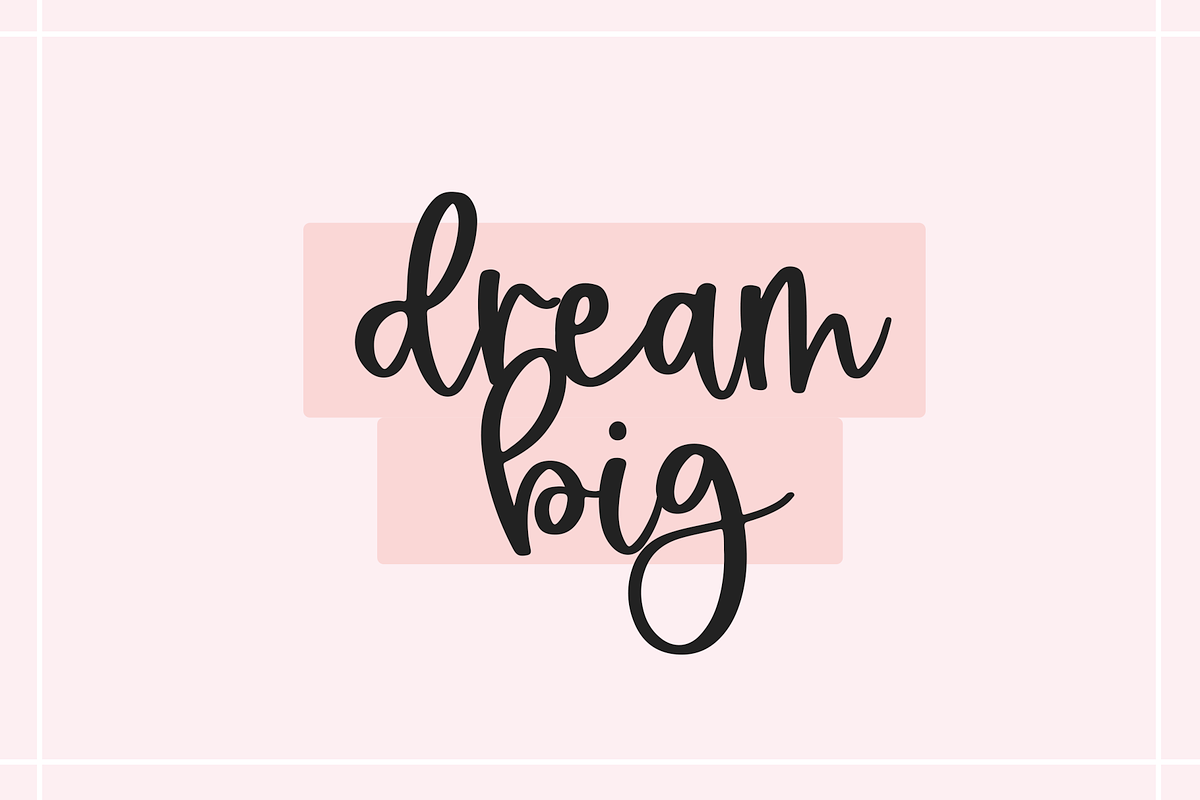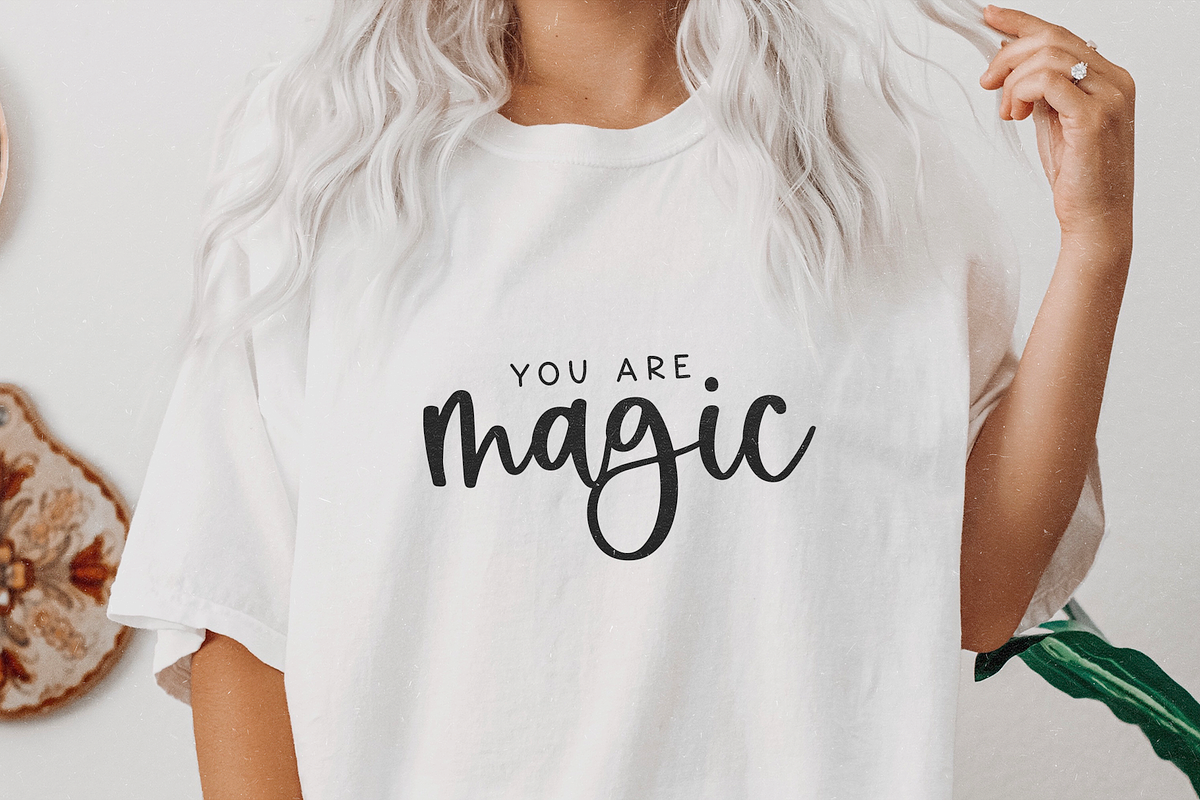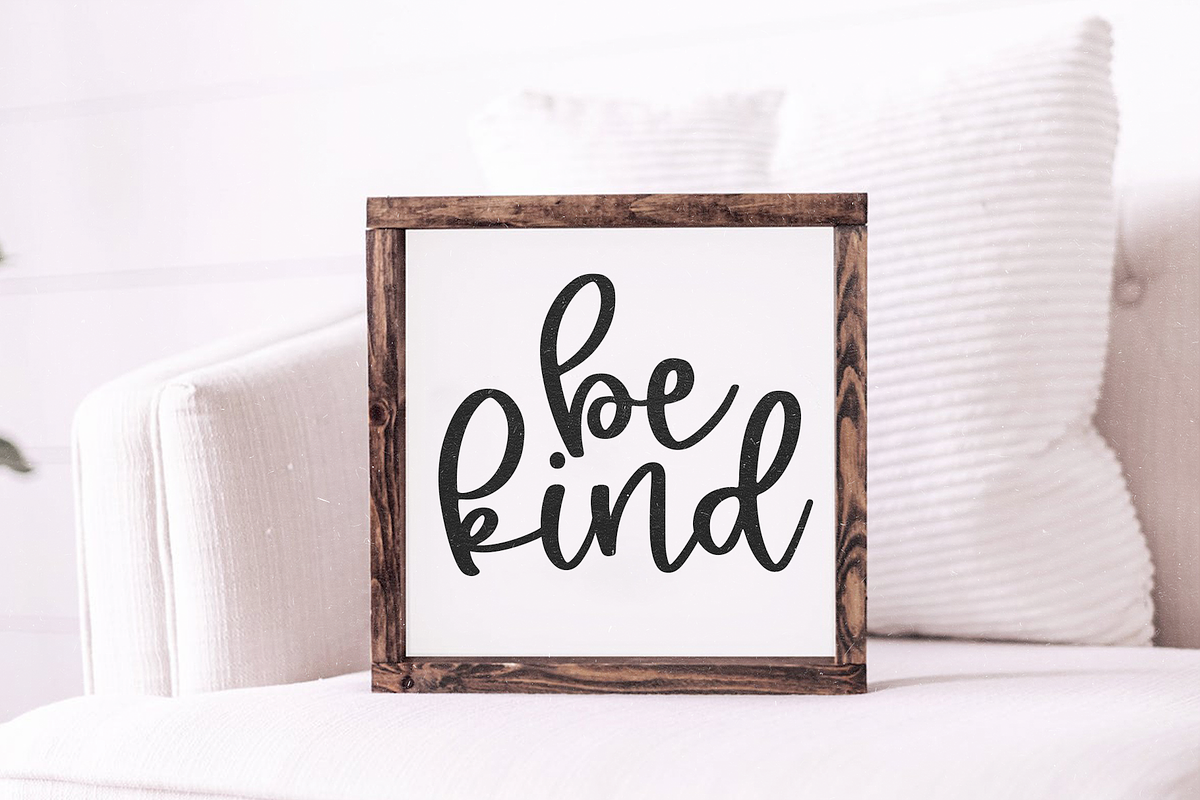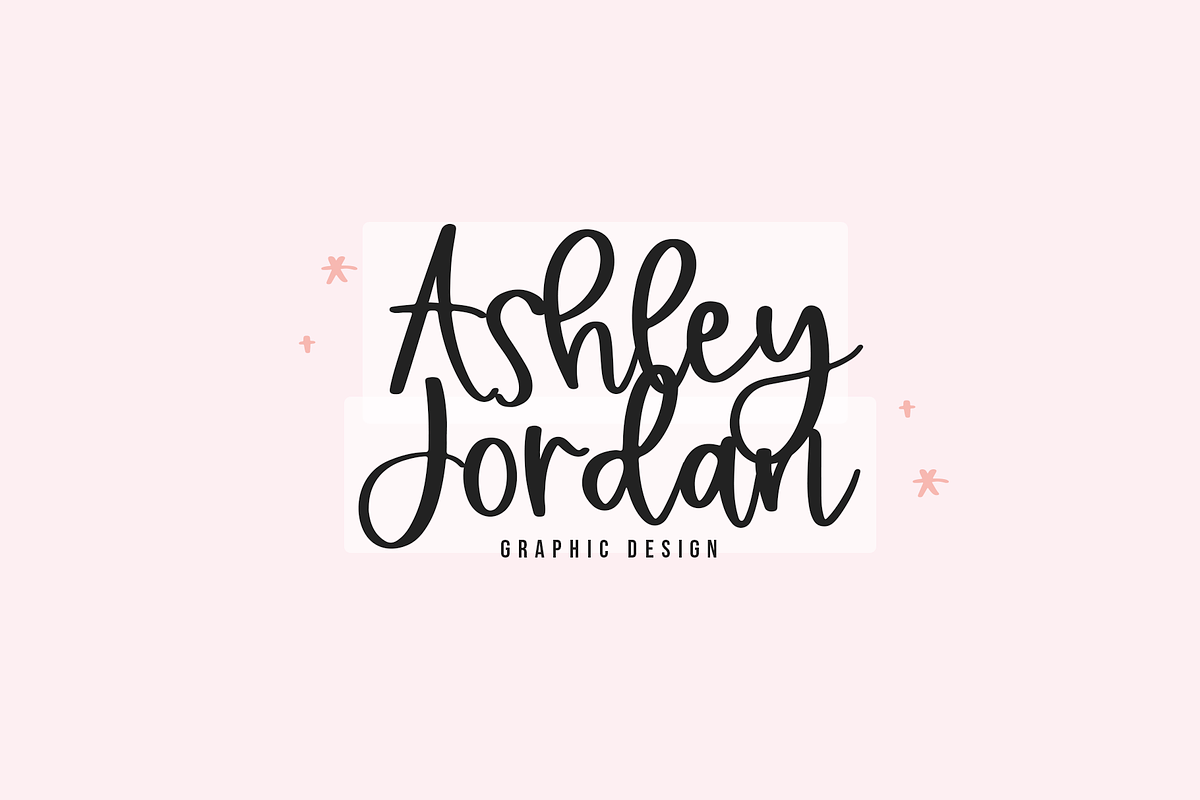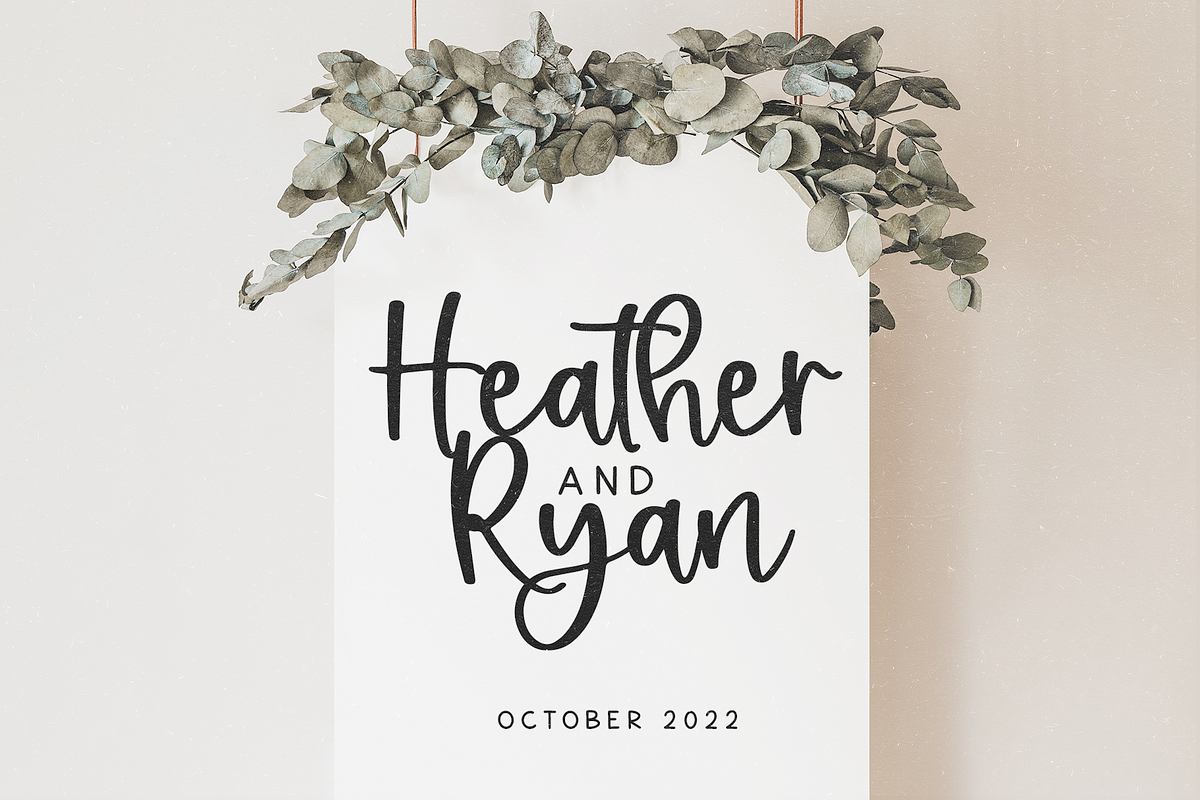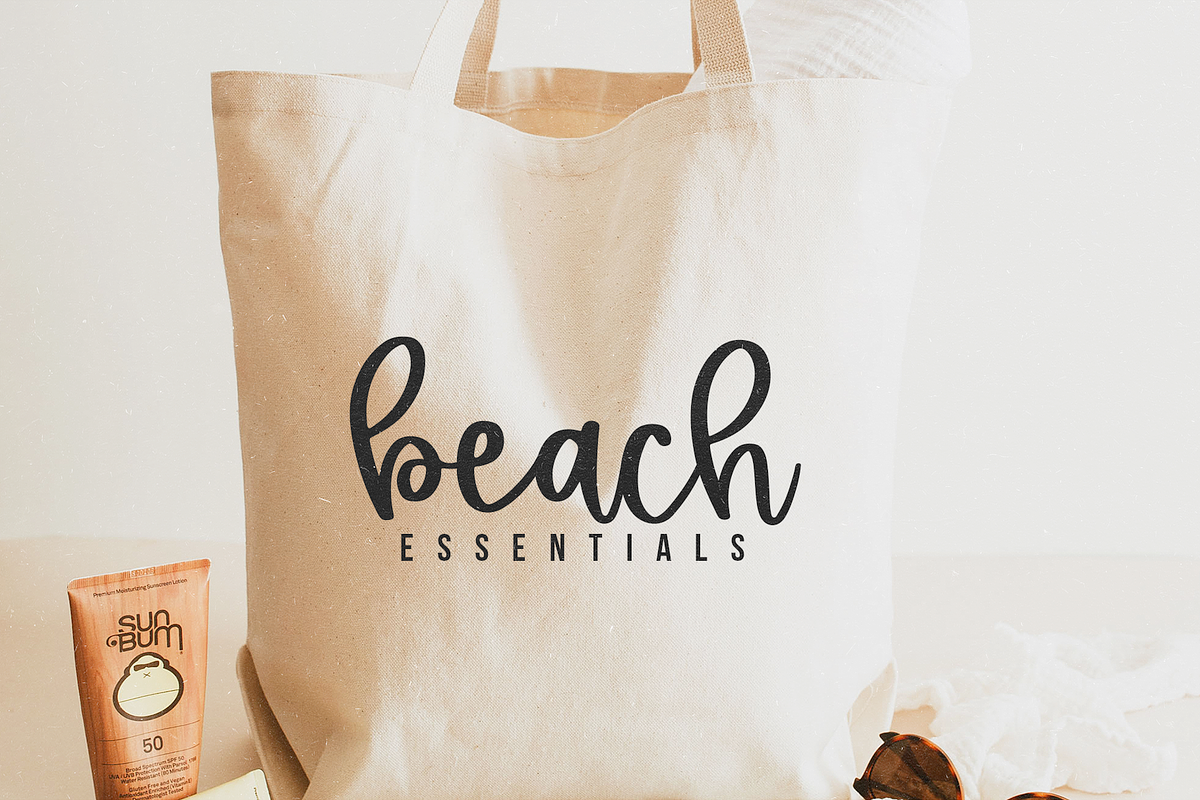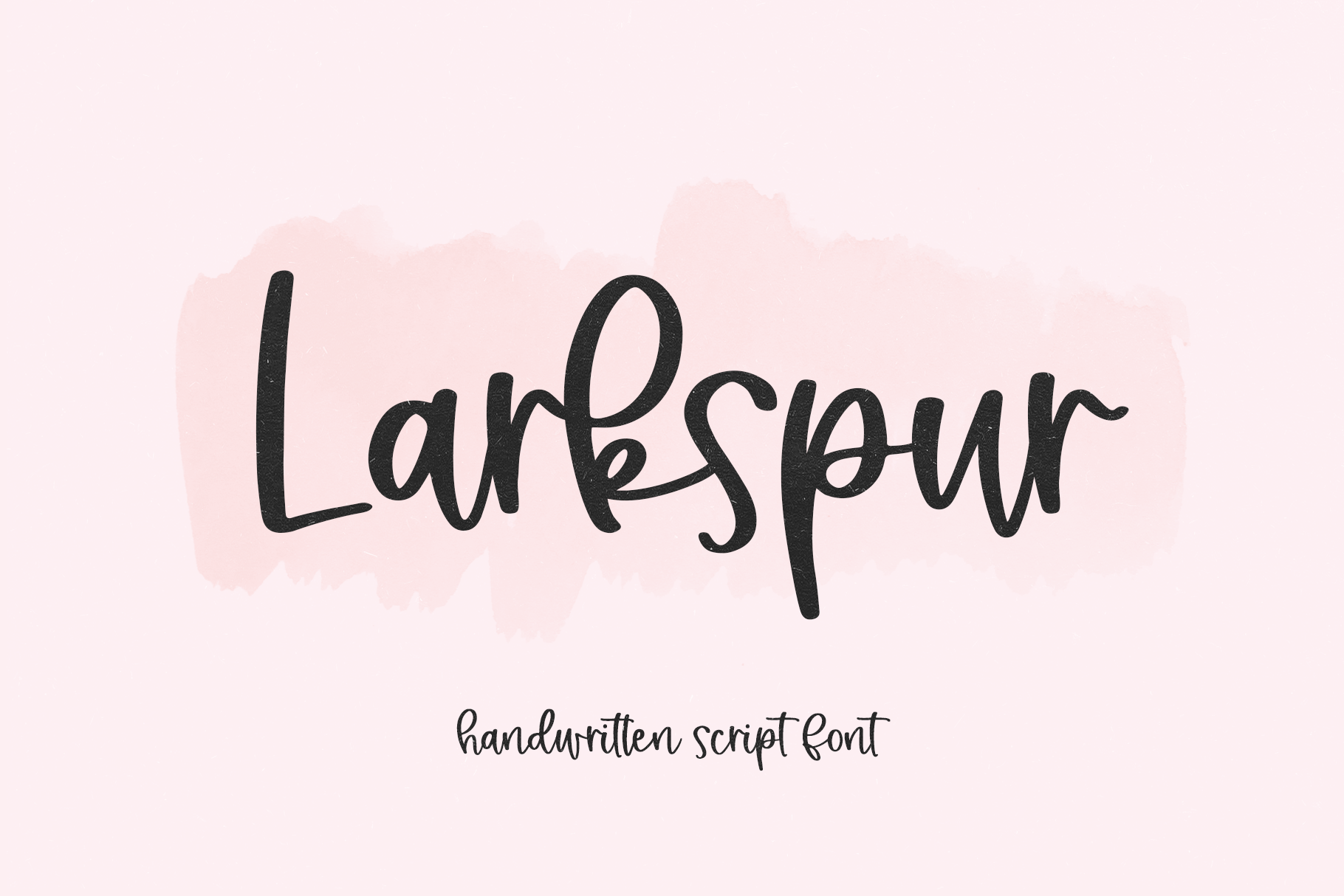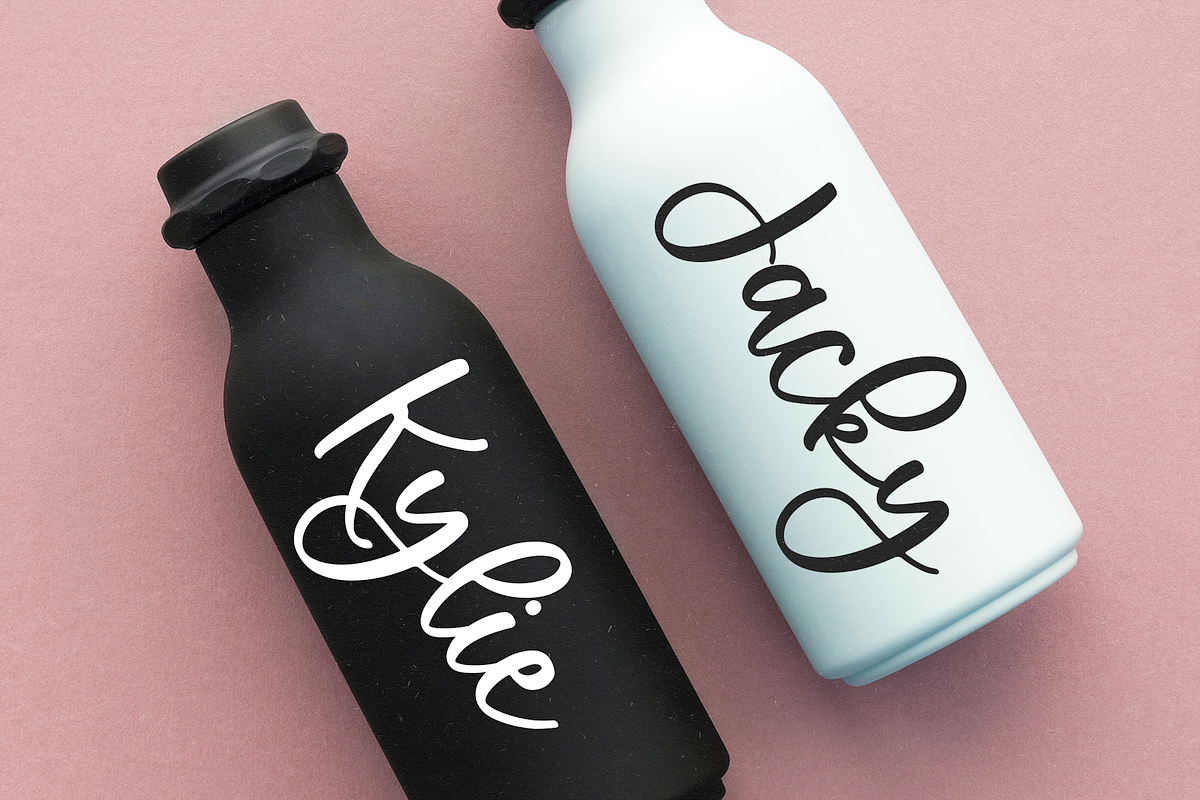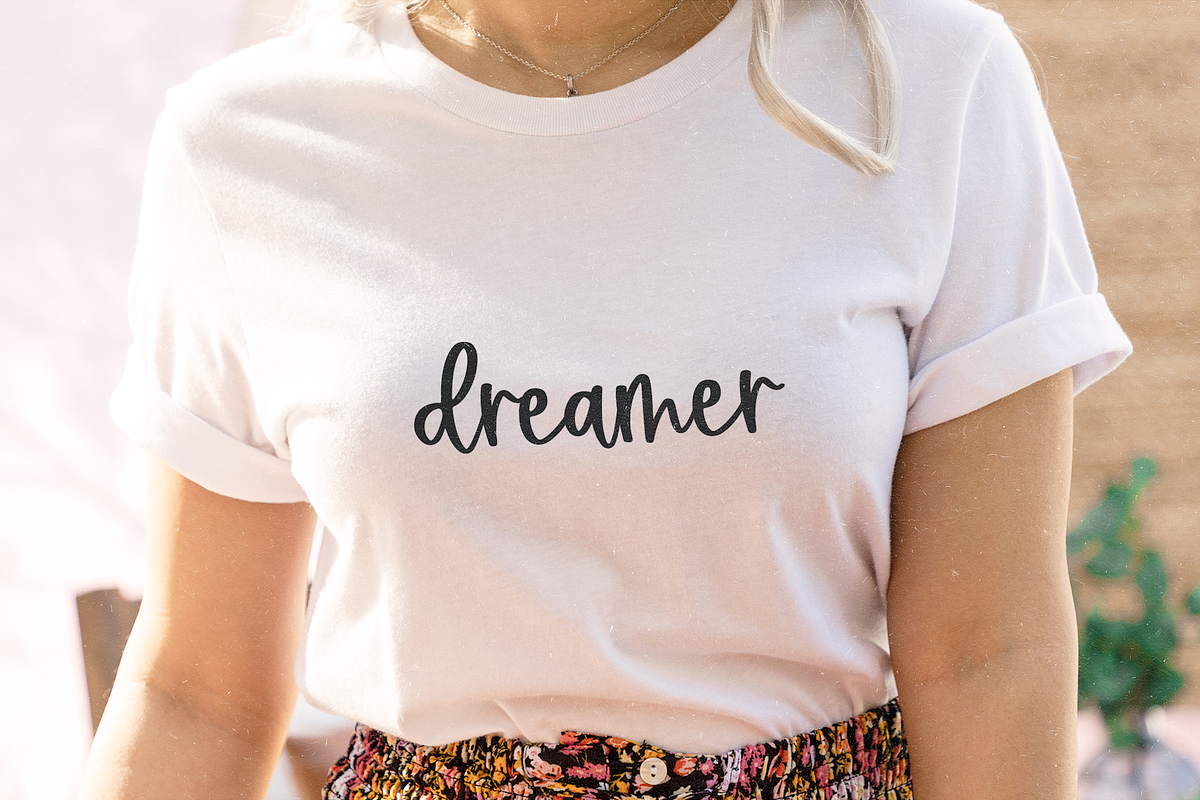
Larkspur | Handwritten Script Font
Larkspur is a handwritten script font.
This font is perfect for your craft projects, svg designs, logos, branding, wedding decor and more!